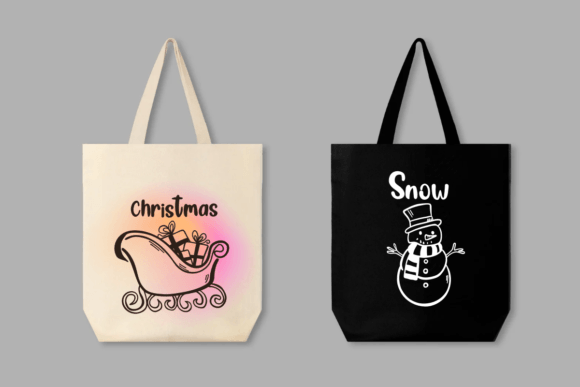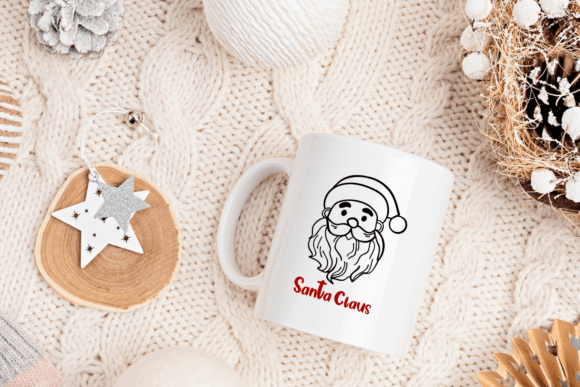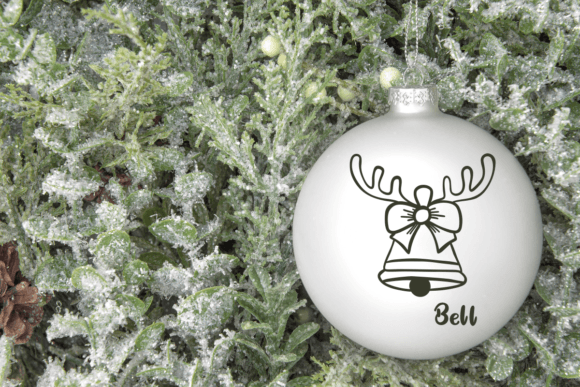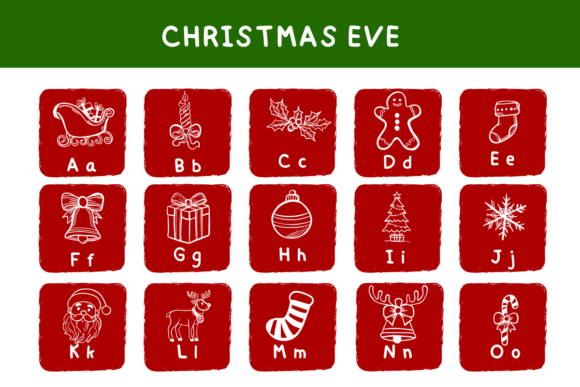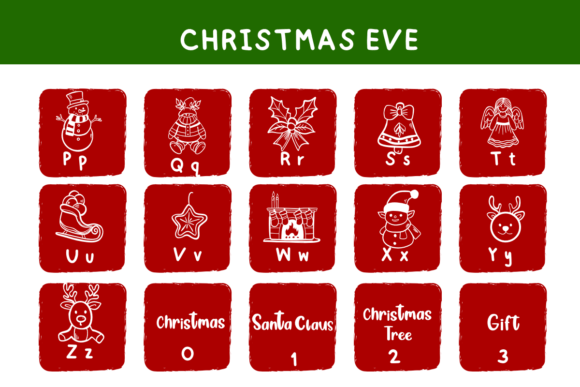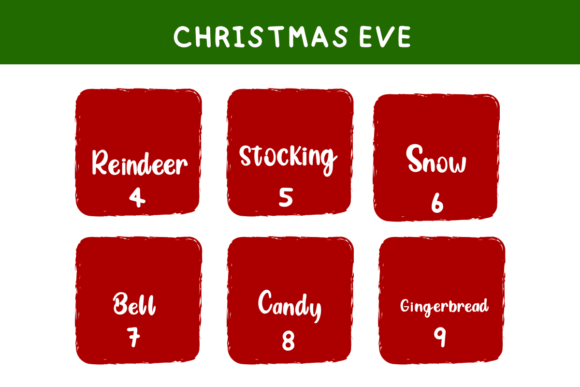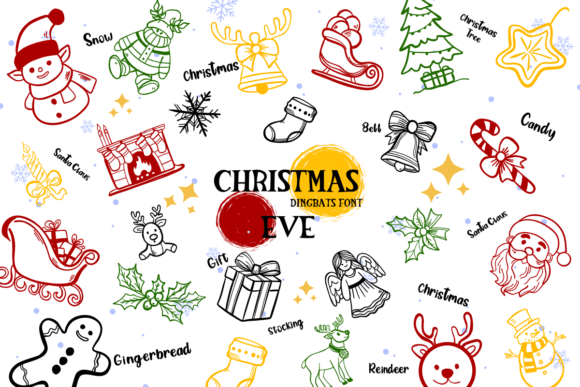
The Magic of Christmas Eve Font
It’s the most wonderful time of the year – and you’re in the midst of planning a festive holiday project. Perhaps you’re crafting the perfect wedding invitation, or designing a set of adorable DIY decorations for your home. Whatever your creative endeavor, the right font can make all the difference in setting the tone for your project’s success. That’s where the enchanting Christmas Eve Font comes in – a delightful dingbat font that’s sure to bring a touch of whimsy and joy to your designs.
As a designer, you understand the importance of choosing a font that not only complements your project’s theme but also adds an extra layer of personality. The Christmas Eve Font is a valuable addition to any designer’s toolkit, offering a wide range of creative possibilities for projects big and small. Whether you’re working on a holiday-themed project or simply looking to add a festive touch to your designs, this font is sure to be a holiday hit.
Christmas Eve Font Key Features
• Font Family: Christmas Eve Font is a custom-designed font, making it a unique and exclusive choice for designers and artists.
• Unique Characteristics: The font features a festive, handwritten style with intricate details, making it perfect for adding a personal touch to holiday-themed designs.
• Characters: The font includes a wide range of characters, including uppercase and lowercase letters, numbers, and special characters, allowing for creative expression and versatility.
Designer Review: Christmas Eve Font
Overall, I think the Christmas Eve Font has a lot of potential, but it also has some limitations that might affect its usability in certain projects.
• ✨ Unique and festive design that captures the spirit of Christmas
• ✨ Clean and legible font, making it easy to read even in smaller sizes
• ✨ Good for use in titles, headings, and short paragraphs where a touch of holiday cheer is needed
Limited by:
• ⚠️ Limited character set, which might make it difficult to use for longer texts or in situations where a wide range of characters is required
• ⚠️ Font might not be suitable for body text, as it can be a bit too playful and might distract from the content
• ⚠️ Not ideal for use in formal or professional settings, as it’s more geared towards casual and festive projects
The Christmas Eve Font is a fun and festive addition to any project, but it’s essential to use it judiciously and in contexts where its unique character can shine. While it’s not the most versatile font, it’s perfect for adding a touch of holiday magic to your designs.
Some tips for getting the most out of the Christmas Eve Font include:
• Using it in conjunction with festive graphics and colors.
• Creating a consistent design style throughout your project.
• Experimenting with different font sizes and styles to create visual interest.
Common use cases for the Christmas Eve Font include:
• Creating holiday cards and invitations.
• Designing festive social media graphics.
• Develop
Alternatives to Christmas Eve Font for Designers
Great Vibes is a beautiful, elegant script font perfect for adding a touch of sophistication to your designs. It’s ideal for wedding invitations, formal event invitations, and high-end branding. Great Vibes is more versatile and can be used in various contexts beyond Christmas, making it a great alternative to Christmas Eve Font.
Compared to Christmas Eve Font, Great Vibes has a more refined and classic feel. While Christmas Eve Font is specifically designed for the holiday season, Great Vibes can be used year-round.